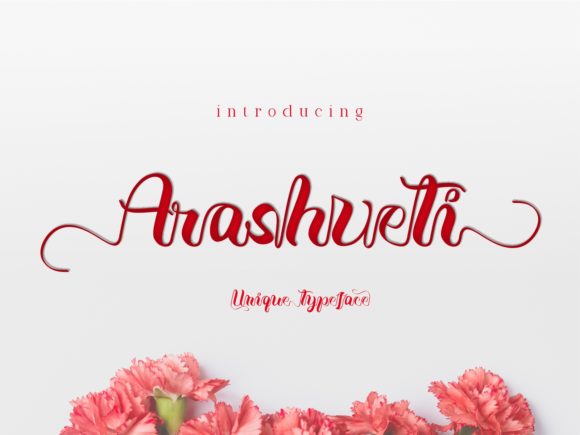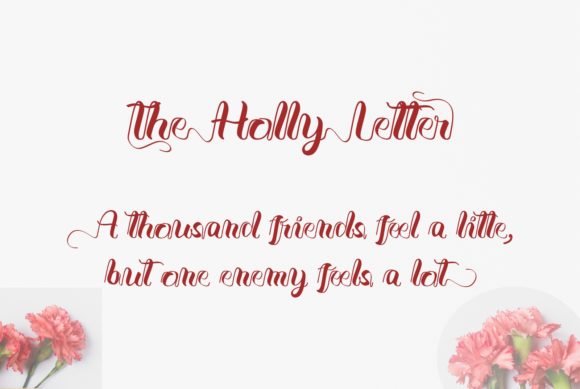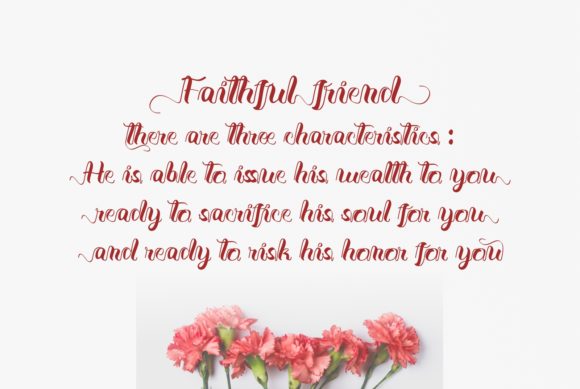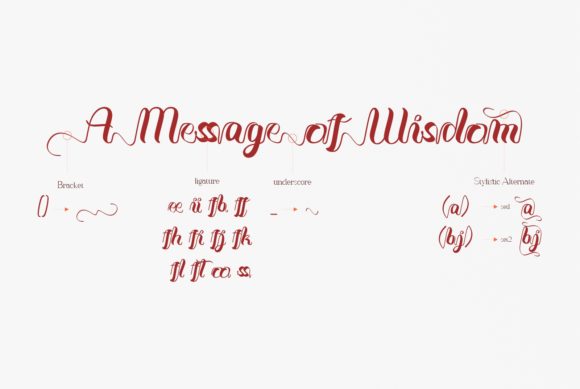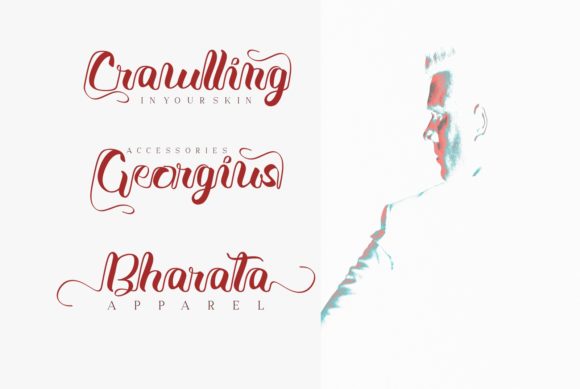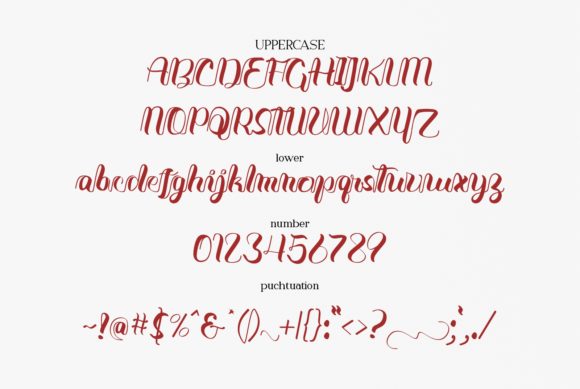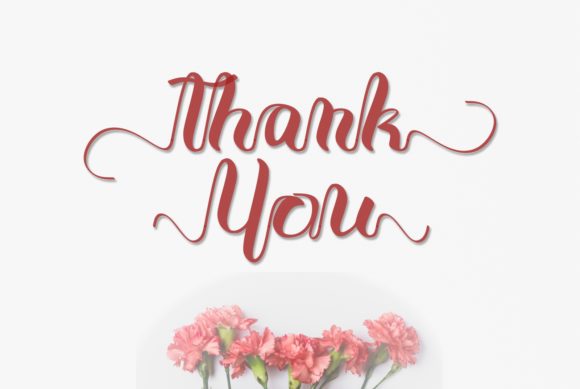
Arashveti Font
About Arashveti Font
Arashveti is an exquisite handwritten font, masterfully designed to become a true favorite. It maintains its classy calligraphic influences while feeling contemporary and fresh. Fall in love with Arashveti and bring your projects to the highest levels!